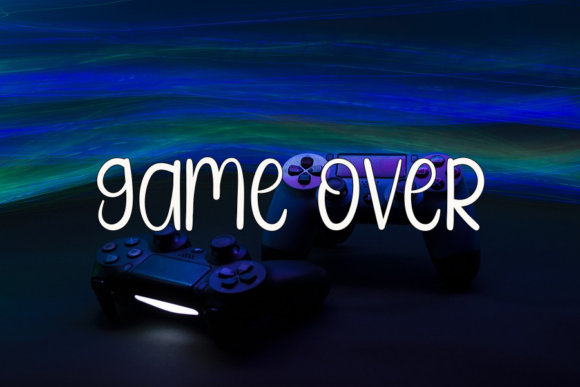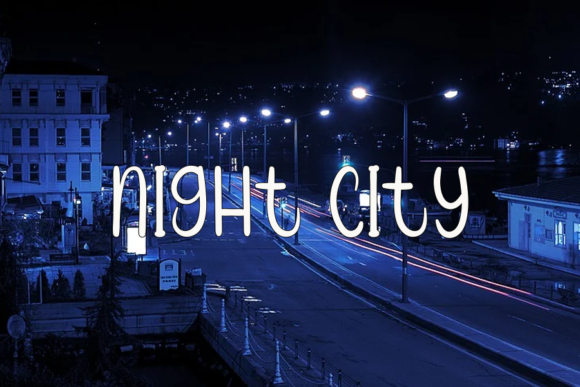
Sunday Coffee Font
db-ku.com - Script & Handwritten -- Sunday Coffee is a sweet and friendly handwritten font. Its natural and unique style makes it incredibly fitting to a large pool of designs. The only limit is your imagination!